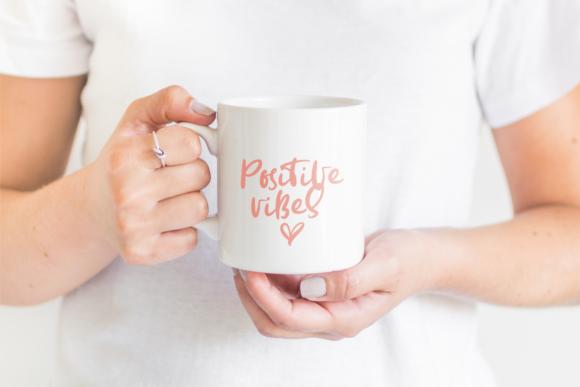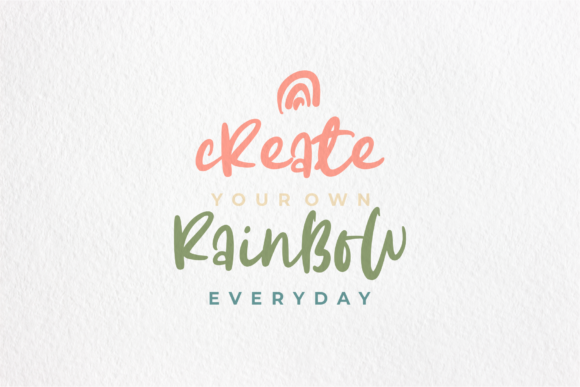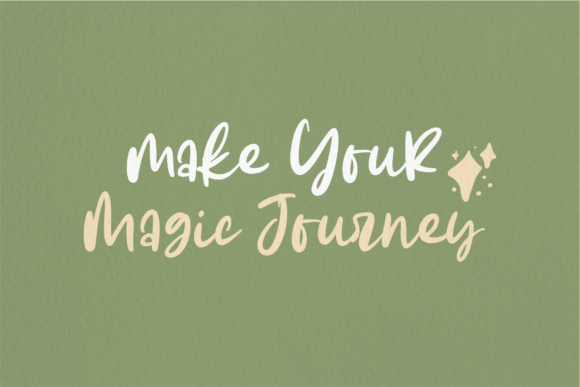
Introduction to Eiffal Merrias Font
Eiffal Merrias is a chic handwritten font.
It features beautiful extras that will brighten up your projects Its casual charm makes it appear wonderfully down-to-earth, readable and, ultimately, incredibly versatile.